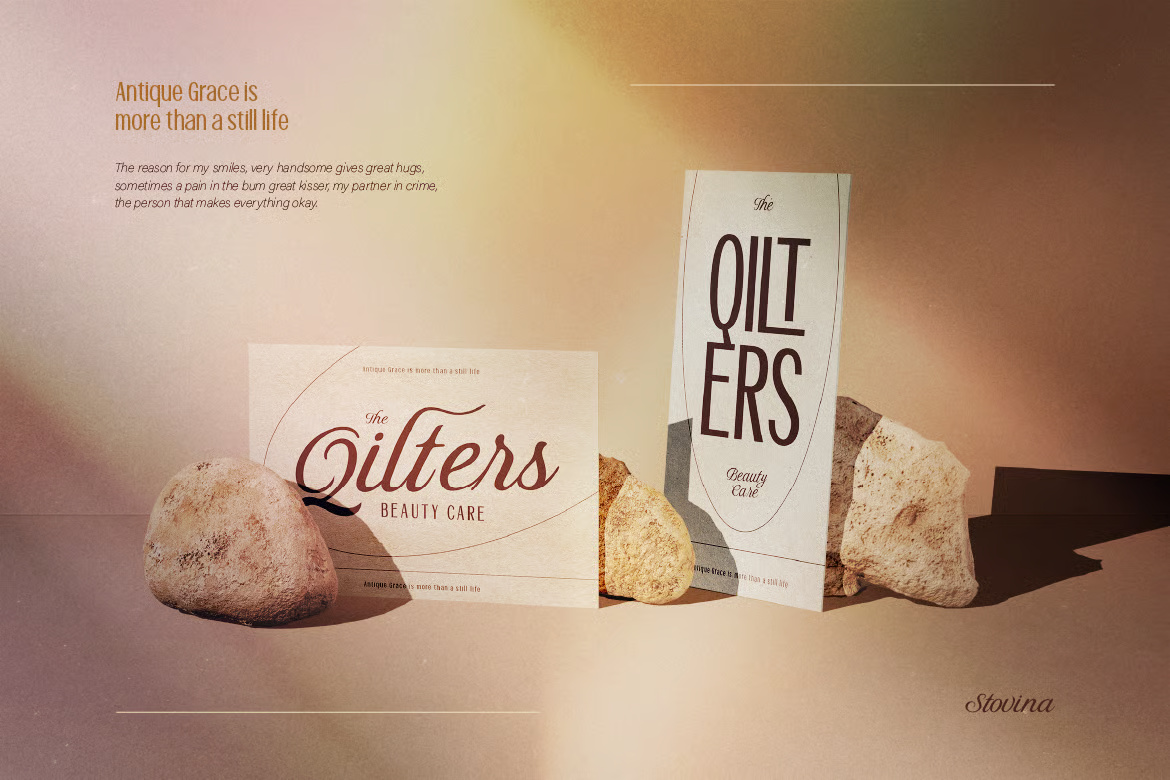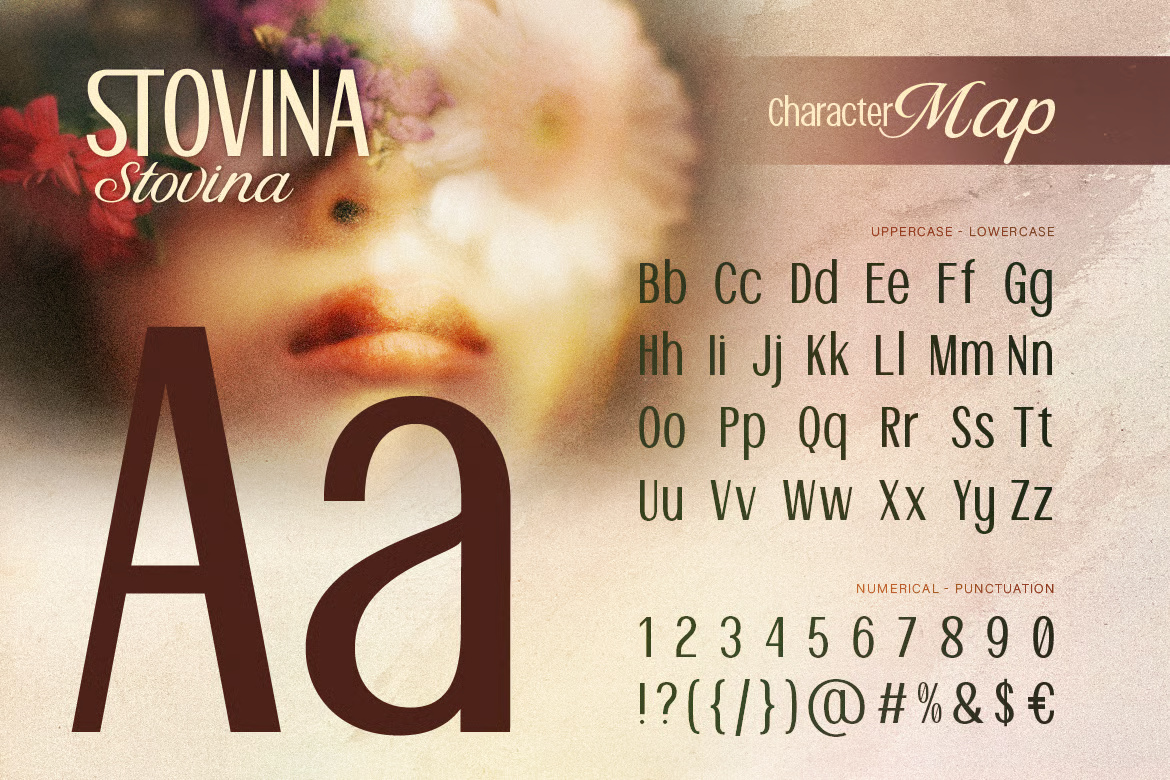
Stovina Font
Stovina, a stylish and versatile duo font that beautifully blends a clean, modern Sans Serif with an elegant, flowing Script. This perfectly paired typeface strikes the ideal balance between professionalism and charm, making it suitable for a wide range of design projects—from branding and logos to wedding invitations, social media graphics, packaging, and editorial layouts.
With carefully crafted ligatures, multilingual support, and advanced OpenType features, Stovina offers seamless typography and a refined visual appeal. Whether you want to create bold headlines or graceful signatures, this font duo delivers both clarity and sophistication in one cohesive package.
Stovina Sans-Serif Font
What fonts are similar to Stovina?
For a free script-and-sans pairing in a similar spirit, combine Great Vibes or Allura with a clean sans such as Montserrat.